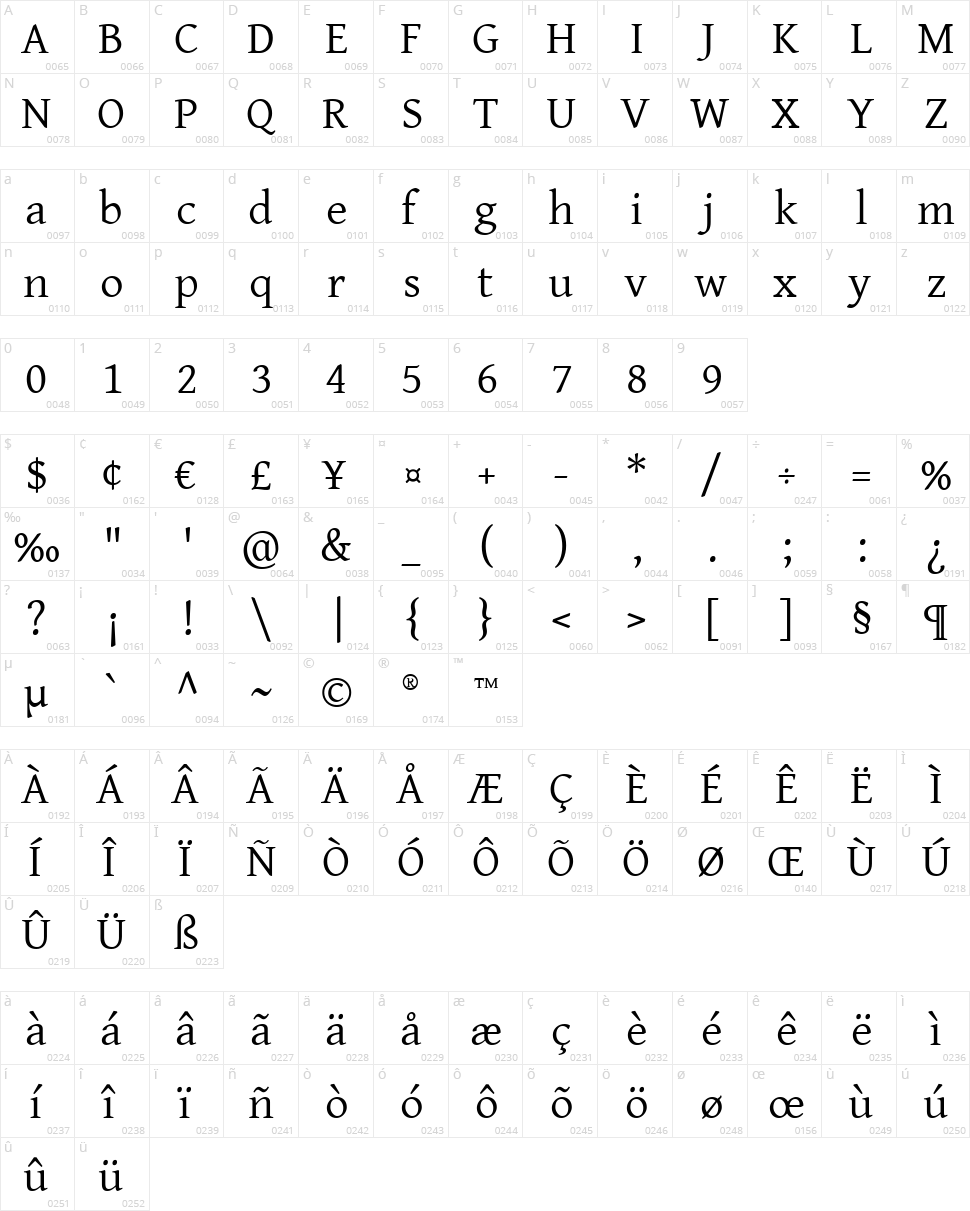
Gentium
Gentium ("belonging to the nations" in Latin) is a Unicode typeface family
designed to enable the many diverse ethnic groups around the world who use
the Latin script to produce readable, high-quality publications. It supports
a wide range of Latin-based alphabets and includes glyphs that correspond to
all the Latin ranges of Unicode.
The design is intended to be highly readable, reasonably compact, and
visually attractive. The additional 'extended' Latin letters are designed to
naturally harmonize with the traditional 26 ones. Diacritics are treated
with careful thought and attention to their use. Gentium also supports both
ancient and modern Greek, including a number of alternate forms. It has won
a "Certificate of Excellence in Typeface Design" in two major international
typeface design competitions: bukva:raz! (2001) and TDC2003 (2003).
Gentium provides glyphs for a wide range of Latin and Greek characters.
It currently supports the following ranges of Unicode 3.0 (completely unless
noted):
Gentium Regular also includes some Cyrillic glyphs, but they are only early
drafts. A future version will include a completely revised set, and will
expand the support for Latin, Greek and Cyrillic to cover Unicode 4.1. It
will also include support for OpenType, Graphite and AAT smart font
technologies.
Gentium also currently lacks any special font programming that can
substitute one glyph for another or position glyphs in a 'smart' way, such
as in OpenType, Apple Advanced Typography or SIL's Graphite. For example,
although Gentium includes an 'ffl' ligature, there are no special routines
in the font that will automatically substitute 'f'+'f'+'l' with 'ffl', but
an individual application might provide that feature.